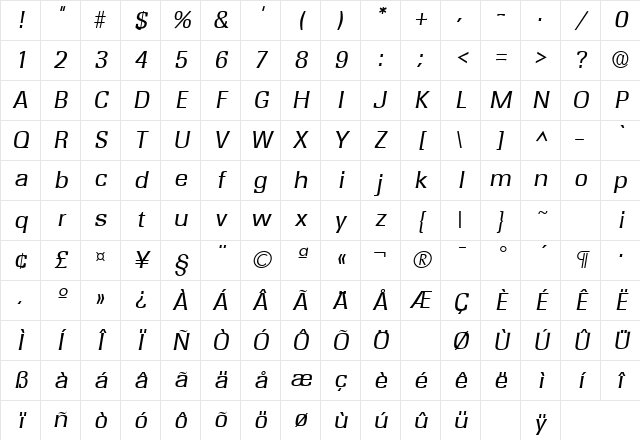
Rochester Italic Free Font
Rochester Italic
Complete Rochester Italic glyph index. Displaying only characters natively supported by Rochester Italic font.
Design Context for Rochester
Rochester is a composed and adaptable typeface that performs quietly and consistently across a wide range of design contexts. The slanted form adds forward momentum and visual energy.